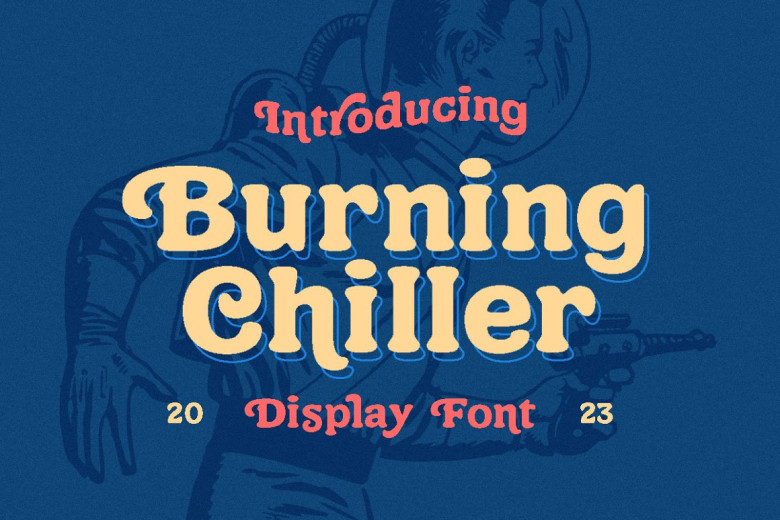
Burning Chiller Font
Burning Chiller is a playful font which captures the spirit of the 90s. Soak in its retro charm, and use the cartoon illustration that comes with this font to experiment its versatility.
This font is versatile enough to suit a range of applications, particularly logo design. Additionally, its formal formats such as invitations, labels and books make it particularly suitable.
Burning Chiller Display Font